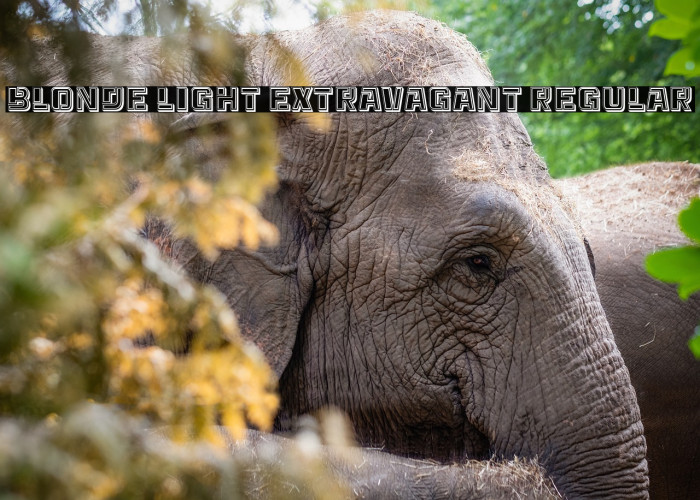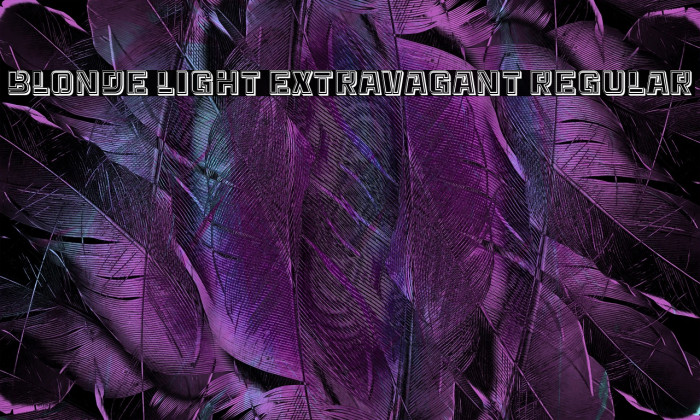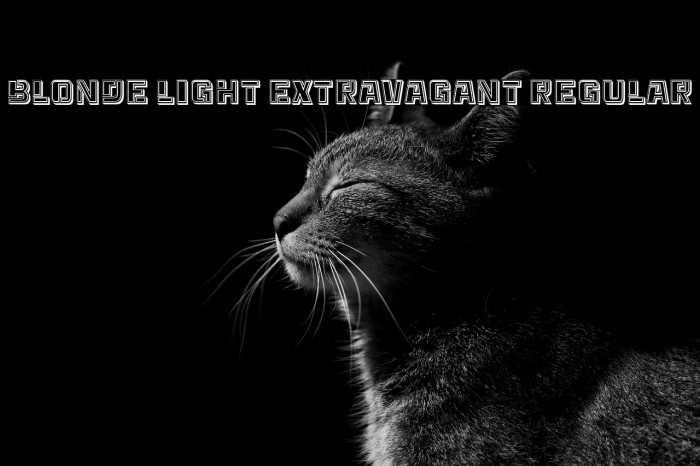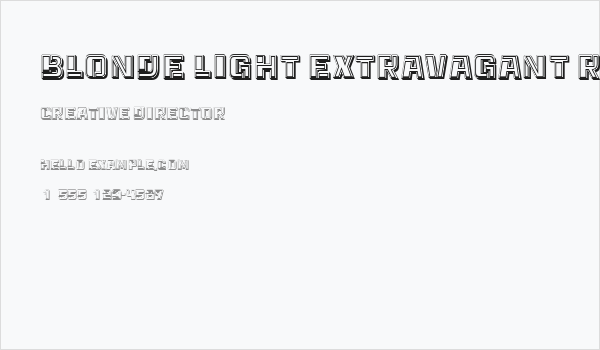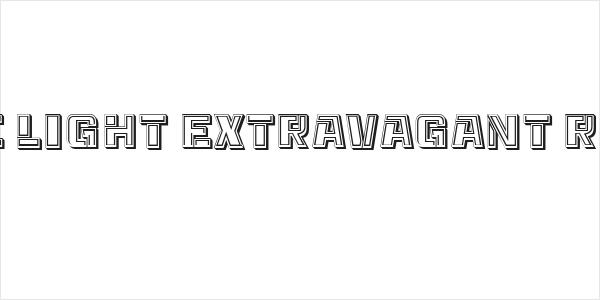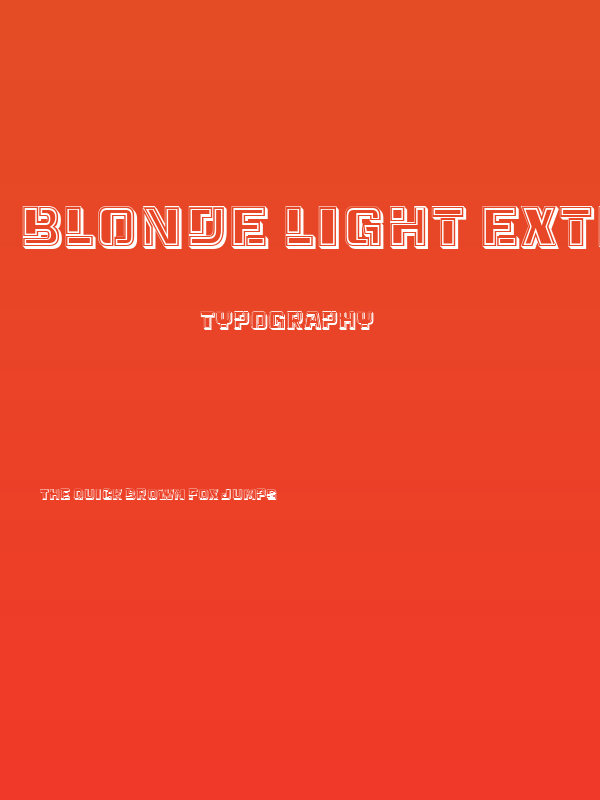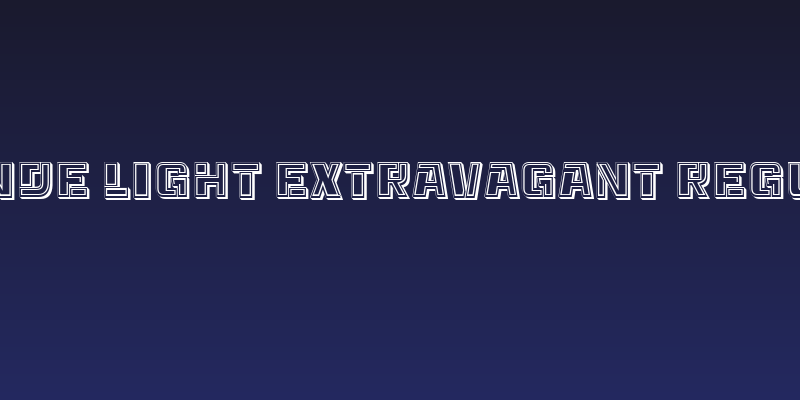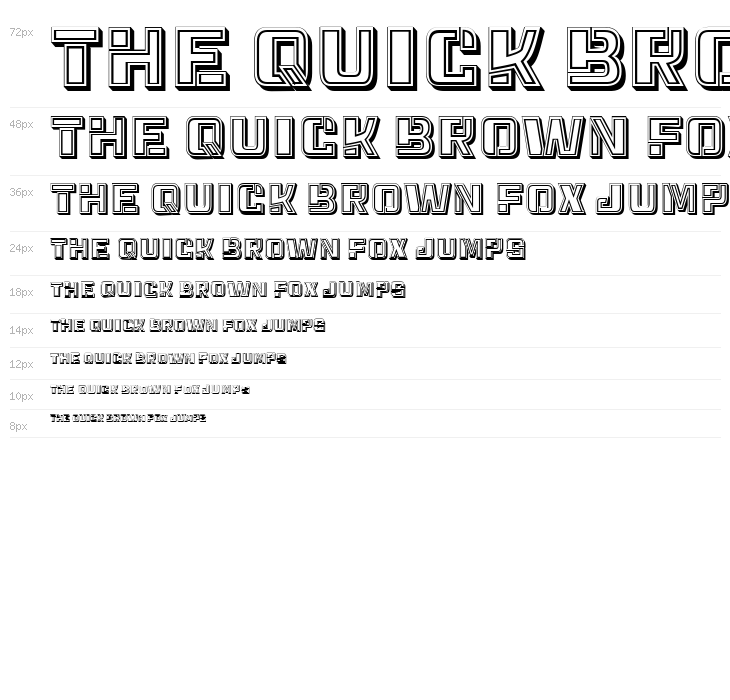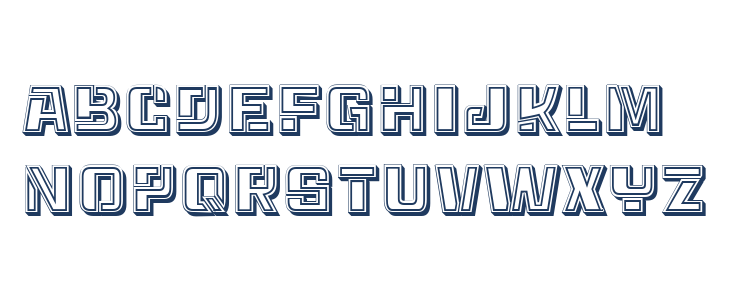
Blonde Light Extravagant Regular Font
Blonde Light Extravagant Regular Description
This font features a bold and striking design with a three-dimensional effect created by layered outlines. Each character is crafted with precision, offering a modern and futuristic appeal. The uppercase letters are uniform in height, while the numbers and special characters maintain the same stylistic approach, ensuring consistency across all elements. The font's geometric structure and clean lines make it highly legible, even at smaller sizes. Its unique style is perfect for making a statement in any design project, providing a sense of depth and dynamism.
| Proposed Projects | Ideal for branding, posters, headlines, and any project requiring a bold, modern aesthetic. |